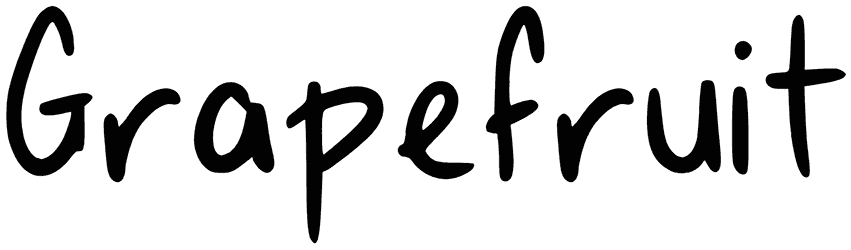
Grapefruit Font
Designed byEugene
When you are working on a modern and casual design, a handwritten font like the present item can give a friendly and natural visual to your words. This is how you can communicate well with your viewers, and the Grapefruit font can get you there. Most punctuation marks are not available, but this script font is going to add a sweet mood to your daily Instagram story.
First time trying to make a font! Sizing is a bit small and you’ll likely have to adjust the space between the lines~